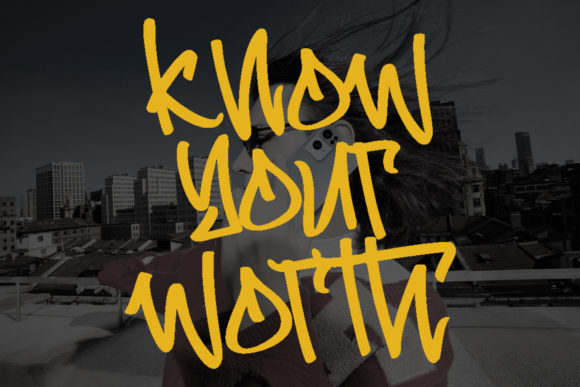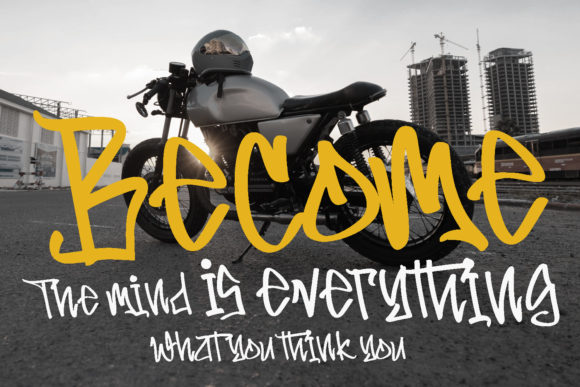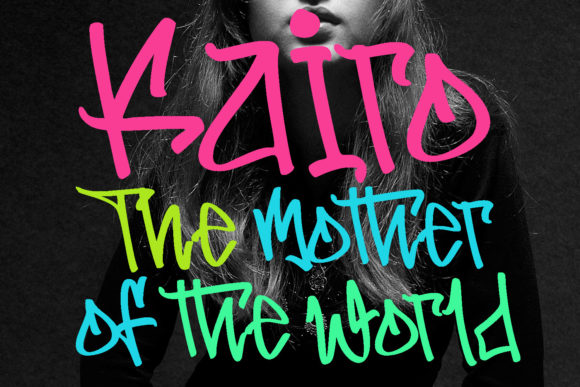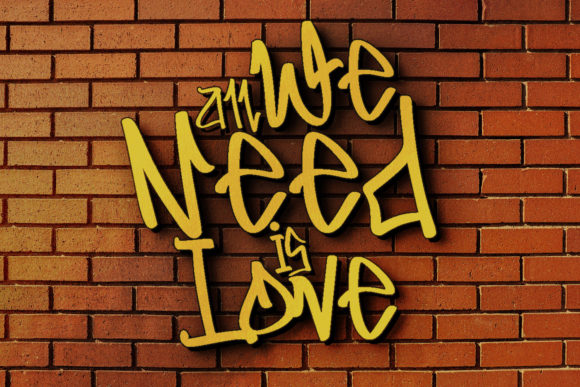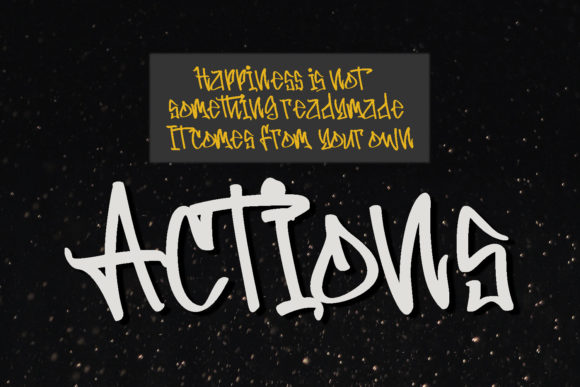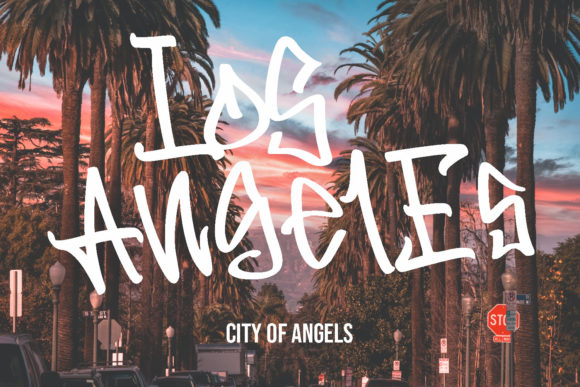
Introduction to Off Stoke Font Font
Offsstoke is a fancy graffiti style font.
With back slanted mono-line stroke, fun character with a bit of ligature and alternates Whimsical and a bit quirky, this font will brighten up each of your designs.